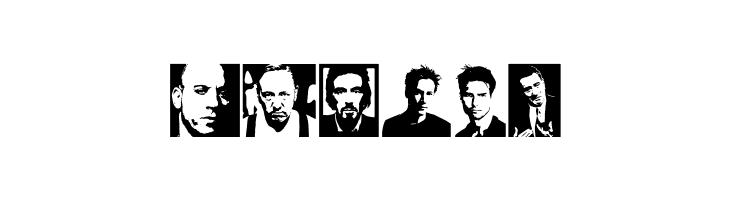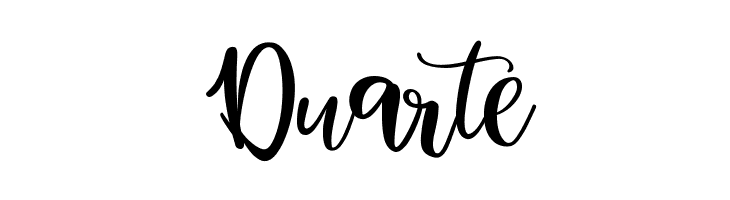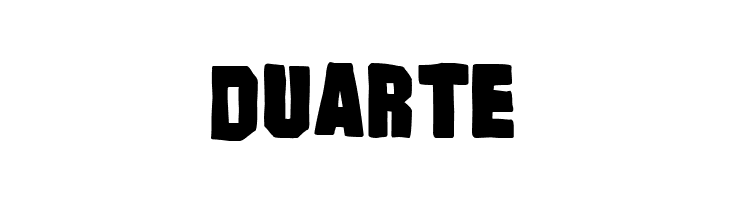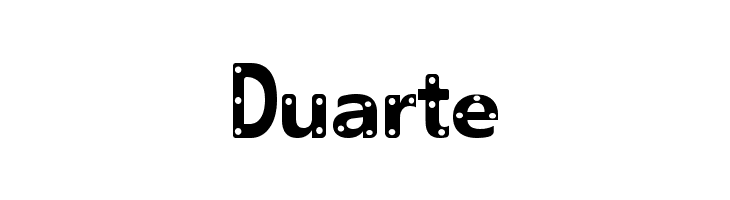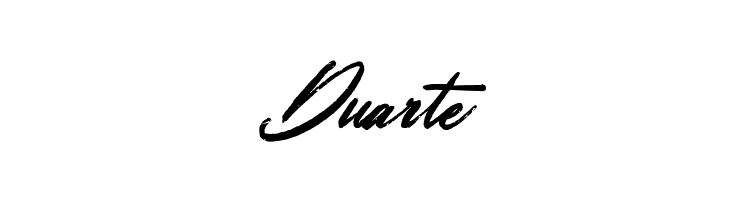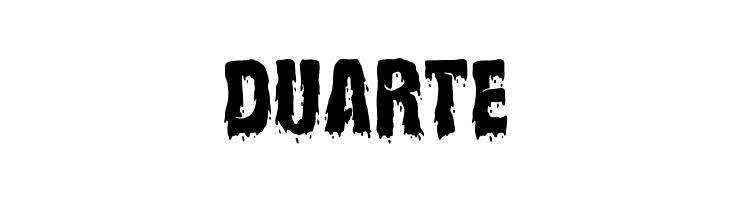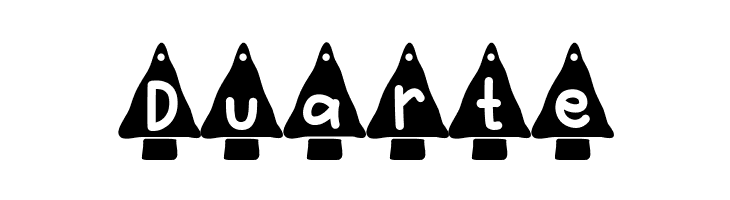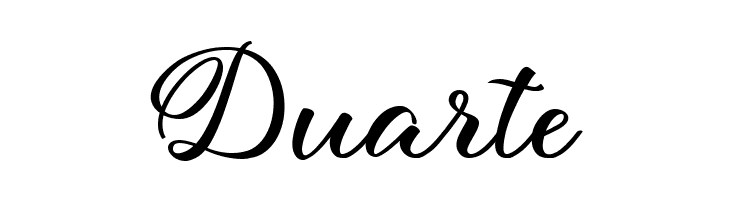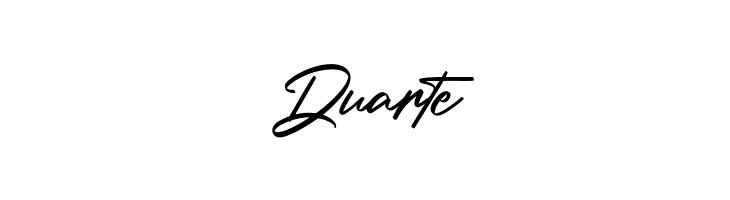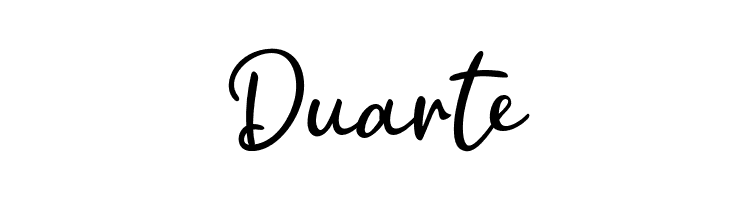
A bold, playful handwritten font with dynamic strokes.
A decorative font with hollow, outlined characters featuring circular cutouts.
A bold, dripping font ideal for horror-themed designs.
A decorative font featuring Halloween-themed silhouettes like ghosts and pumpkins.
A playful, rounded font with a friendly and approachable style.
A festive, bold font with decorative holiday elements and a playful style.
A festive, decorative font with holly leaf accents and angular strokes, perfect for holiday themes.
A playful, cursive script font with flowing, elegant strokes.
A whimsical and decorative font with intricate flourishes and embellishments.
A bold, 3D decorative font with a festive, playful style.
An ornate and decorative font with intricate curves and flourishes.
A festive, tree-shaped font perfect for holiday designs.
A bold, cursive font with elegant, flowing strokes and a dynamic slant.
An elegant cursive font with decorative flourishes and smooth connections.
A lively handwritten font with fluid strokes and a playful elegance.
A playful, casual handwritten font with fluid strokes and dynamic character shapes.
Elegant handwritten script with fluid, connected strokes.
A flowing, elegant script font with a handwritten aesthetic.
A lively and flowing script font with elegant, connected letterforms.
A bold, blocky font with a playful, rebellious edge and hand-cut appearance.
A display font composed of illustrated portrait glyphs instead of traditional letterforms.
Bold, geometric font with a modern, assertive style.
Abstract representation of the Hollywood sign with grid-like characters.
A bold, geometric font inspired by the Hollywood sign, perfect for dramatic headlines.
A dynamic and elegant script font with fluid, cursive strokes.